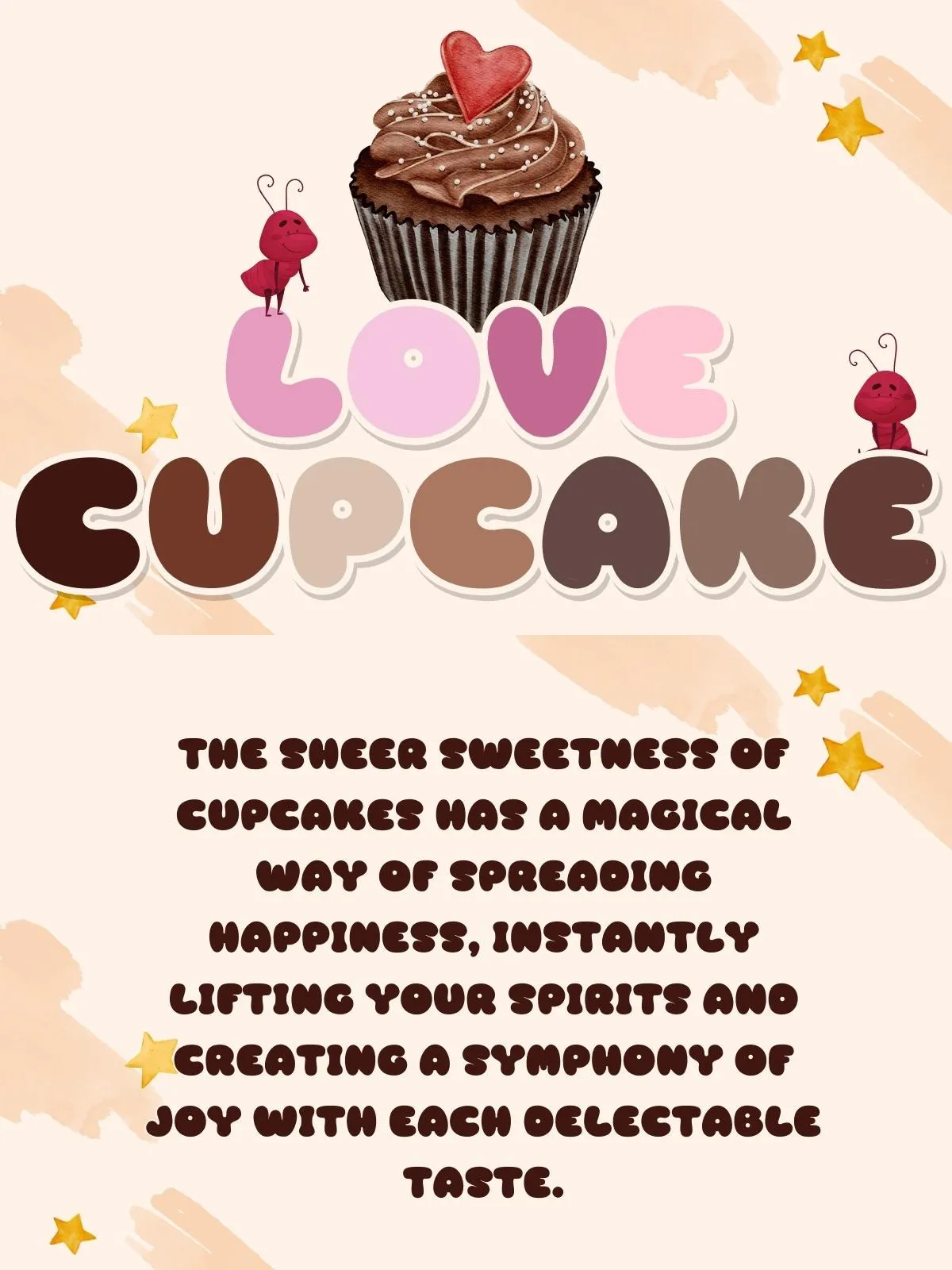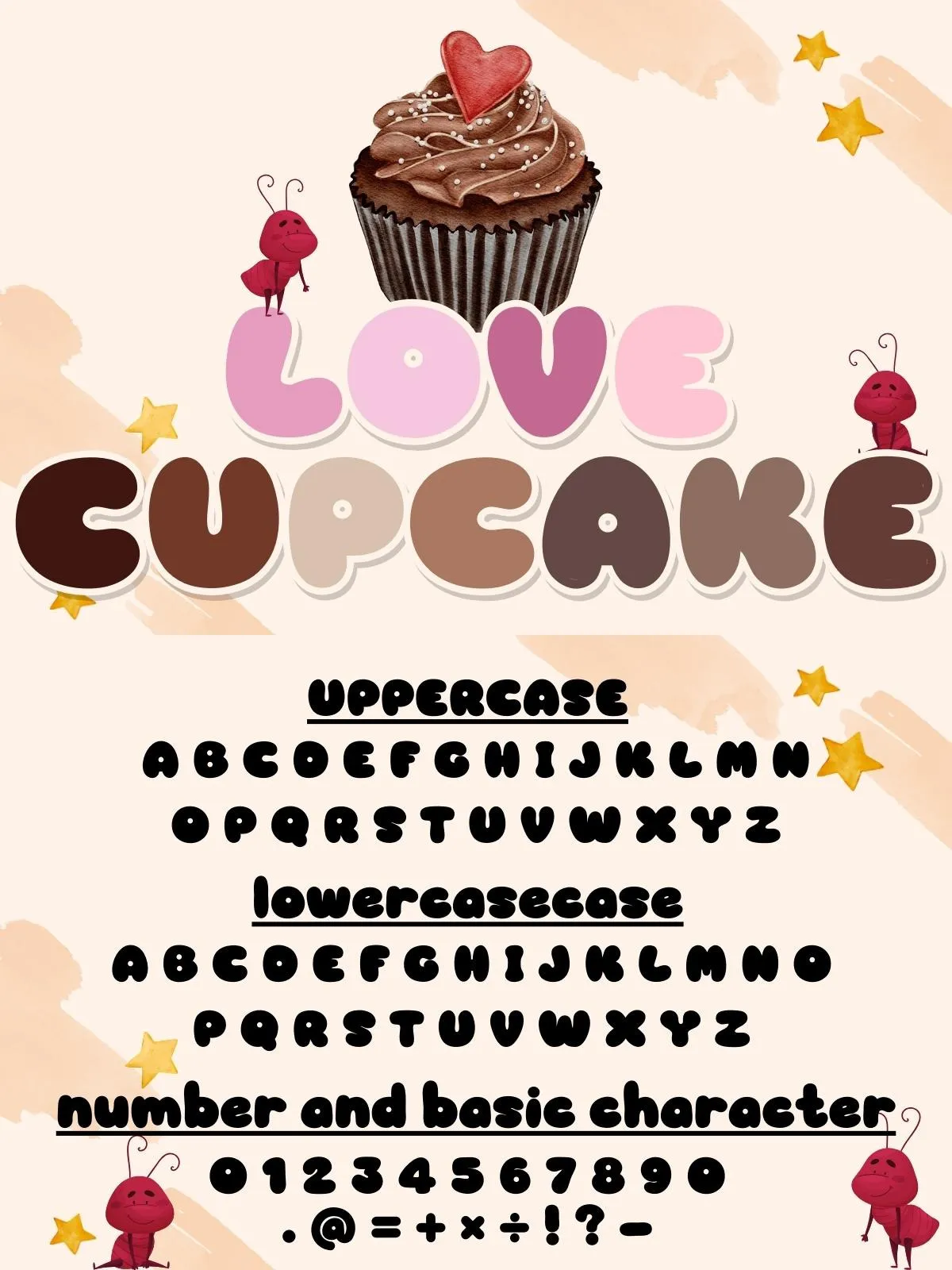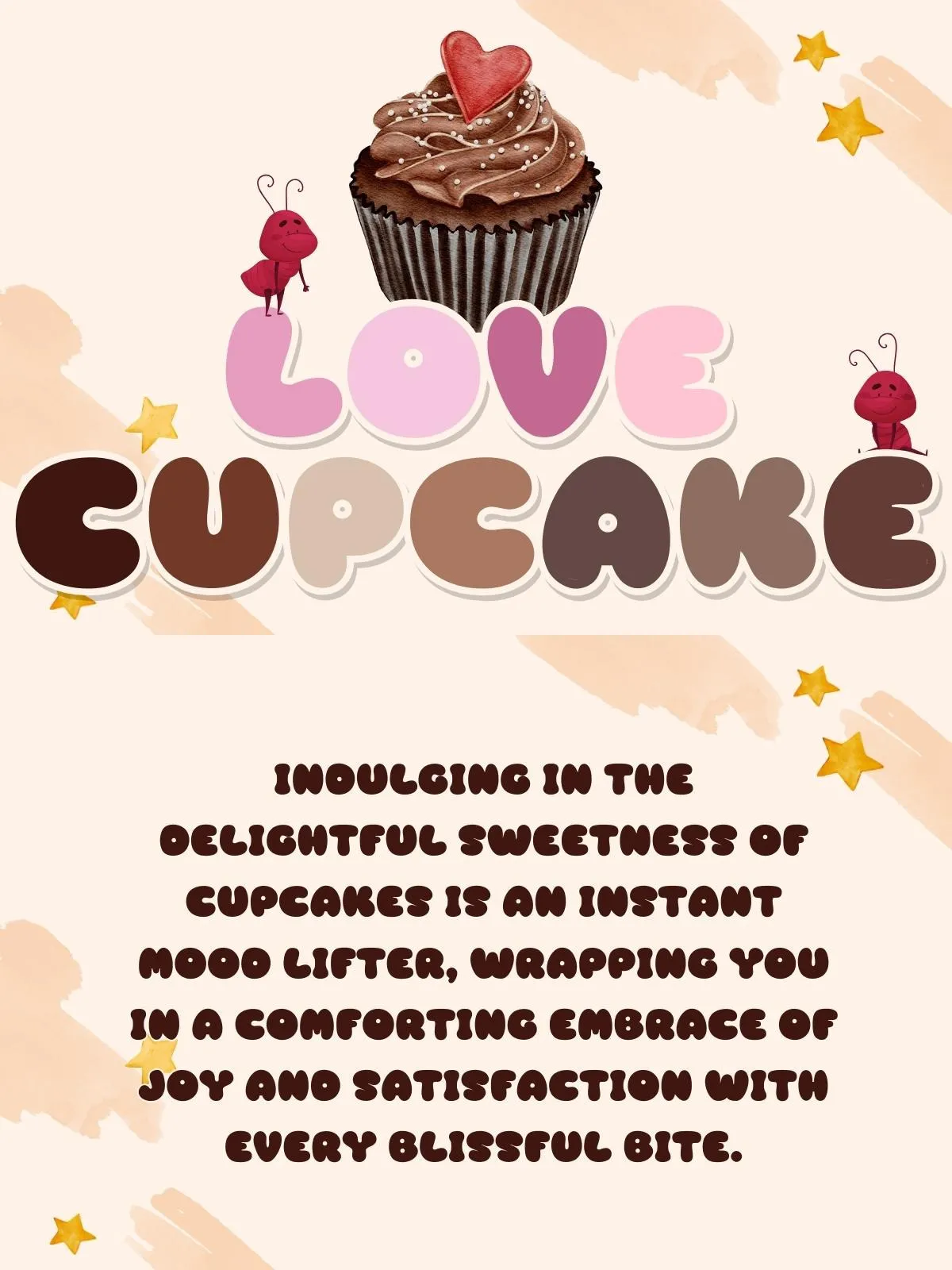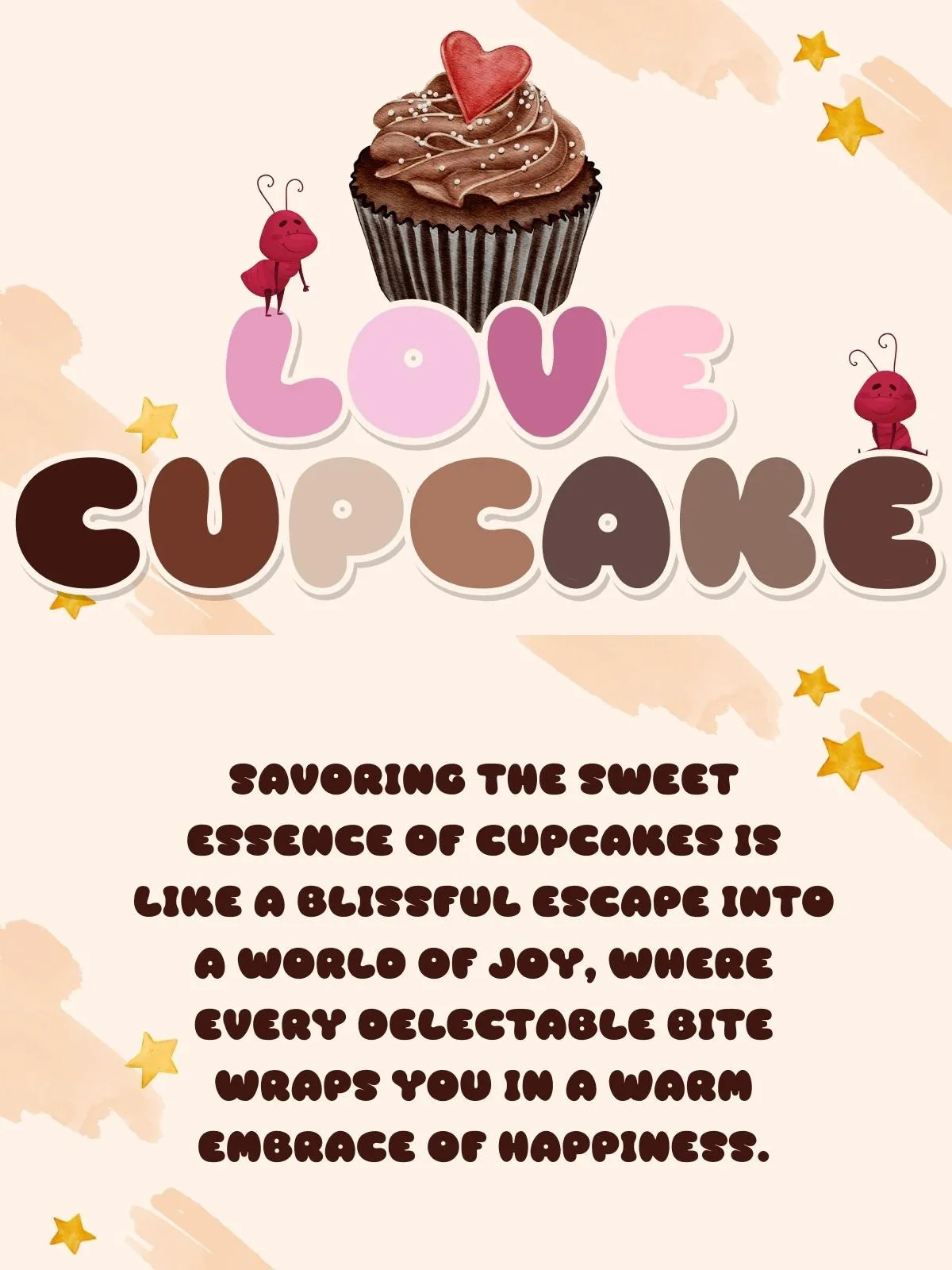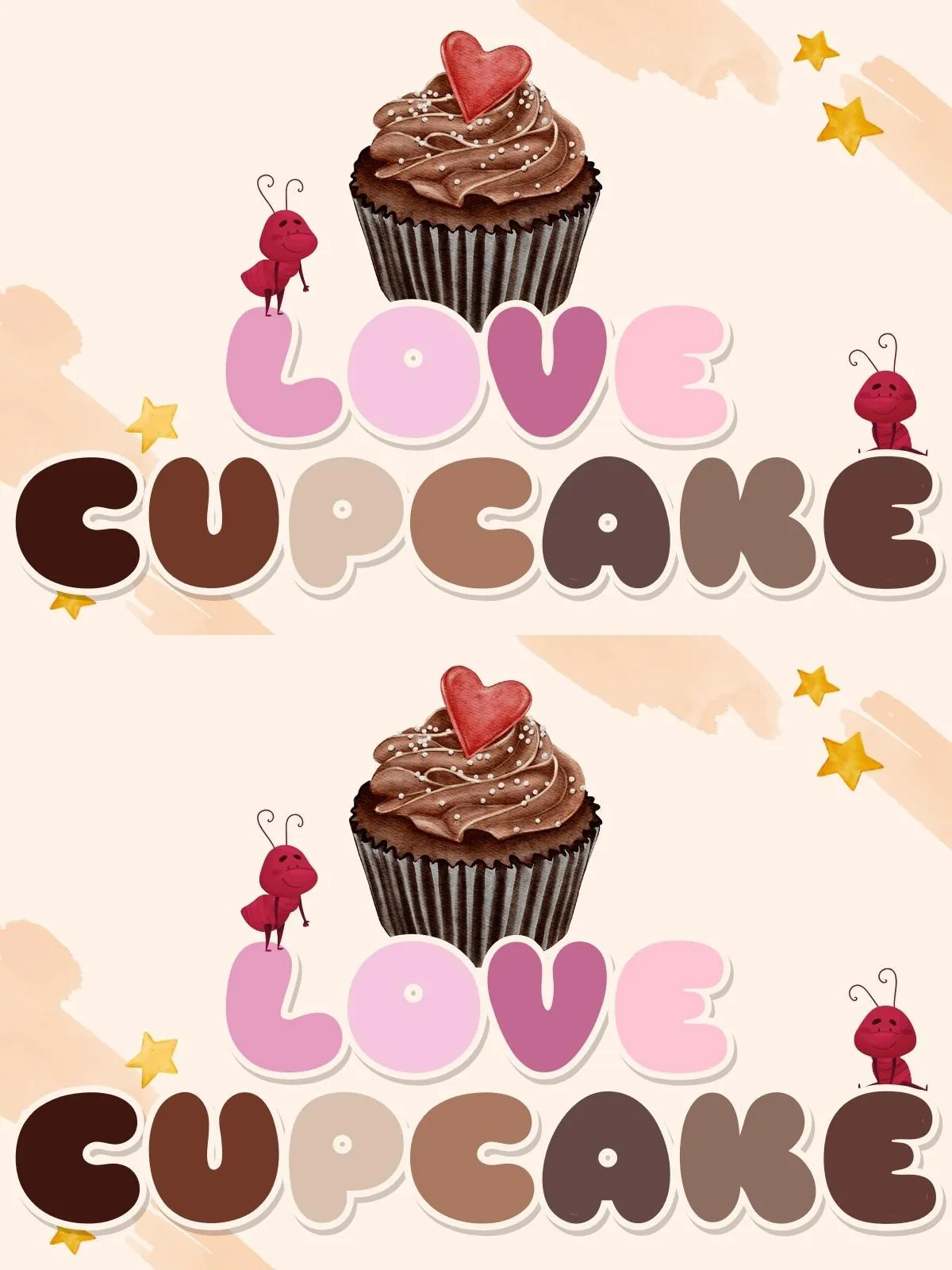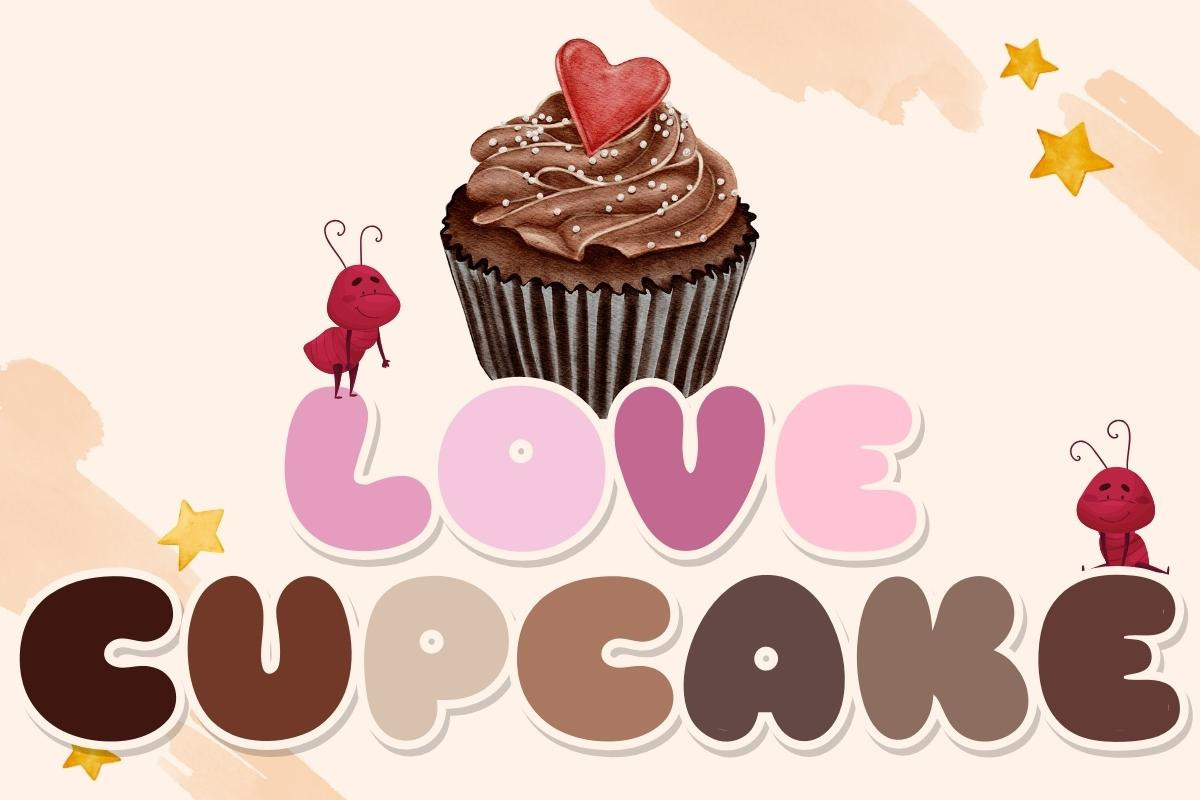
Love Cupcake – Handwritten
Love Cupcake delivers a warm, inviting voice that elevates any project requiring personality and charm. This script font blends the natural flow of hand lettering with the clarity and presence of a display typeface. Designers will find Love Cupcake ideal for applications that demand an emotional, personal touch—wedding invitations, greeting cards, boutique branding, product packaging, and social media creatives all benefit from its playful yet refined forms.
Handcrafted Letterforms
Love Cupcake features carefully drawn strokes that simulate authentic handwriting while maintaining consistent rhythm and legibility. Each character balances personality with readability so headlines remain eye-catching without sacrificing clarity.
Alternates and Ligatures
The font includes contextual alternates and discretionary ligatures that create smooth connections between letters. Use alternates to vary repeated words, and enable ligatures to produce natural cursive joins that read like custom lettering.
Multiple Weights and Styles
Depending on the package, Love Cupcake may include regular and italic styles or stylized swash sets for display use. These variations let you match tone and scale—from casual notes to elegant invitations—without switching type families.
Multilingual Support
Love Cupcake supports extended Latin characters and common accented glyphs, enabling confident use across many languages. This makes it suitable for international wedding stationery, boutique labels, and multi-market campaigns.
Why Choose Love Cupcake
Love Cupcake fills the space between expressive hand lettering and reliable display typography. It injects friendliness and warmth into brand identities, draws attention in social posts, and creates memorable headlines in print and digital layouts. The font actively enhances perceived craftsmanship and helps products feel handmade and personal.
Use Cases
Invitations and Stationery
Use Love Cupcake as the primary headline font for wedding invitations, bridal shower cards, or event stationery. Pair the script with a neutral sans serif for body copy to ensure legibility while keeping the invitation elegant and modern.
Branding & Packaging
Small-batch food brands, bakeries, and lifestyle boutiques will find Love Cupcake perfect for logos, product labels, and tags. Its friendly curves convey artisanal quality and invite tactile finishes like embossing, foil, or letterpress.
Social Media & Marketing
Create thumb-stopping social tiles, promotional banners, and email headers using Love Cupcake for headlines and callouts. The font draws attention in small formats while maintaining recognizable character at larger sizes.
Pairing & Typography Tips
Choose Complementary Partners
Pair Love Cupcake with a clean, geometric sans serif to stabilize layouts and provide clear body text. A low-contrast serif also pairs well when you want a more traditional editorial mood that still benefits from the script’s charm.
Hierarchy and Scale
Reserve Love Cupcake for display elements—titles, pull quotes, and logos. Use larger sizes to showcase its curves and alternates; increase letter spacing slightly for very large headlines to preserve readability. For paragraph text, switch to a neutral sans or serif at a comfortable reading size.
Line Height and Kerning
Allow generous line-height when combining Love Cupcake with other text elements to give the script room to breathe. Adjust kerning manually for headline combinations that include swashes or long descenders to avoid collisions.